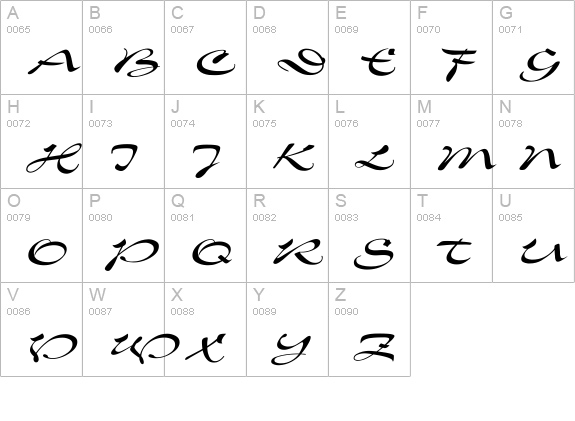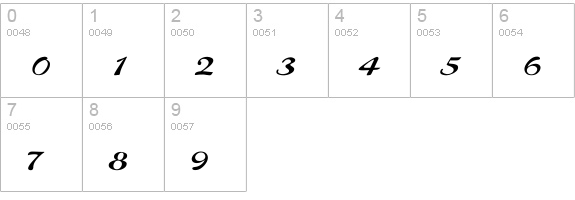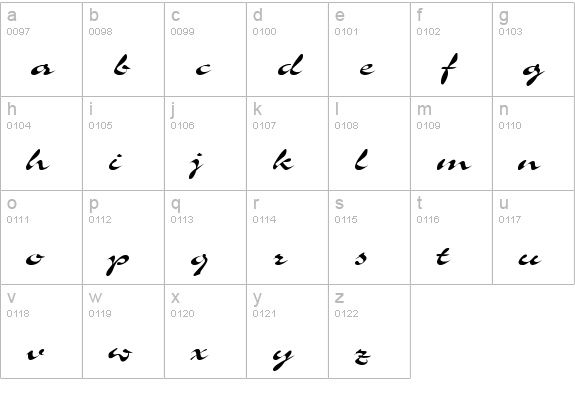
Slogan-Normal Wd Font Details
Slogan-Normal Wd is the standard, neutral variant in the Slogan typeface family \xE2\x80\x94 well suited to general body text, paragraphs, and standard typographic work.
Introducing Slogan-Normal Wd font, the perfect blend of elegance and versatility. This exquisite typeface captures attention with its sleek and modern design, making it ideal for a wide range of creative projects. With its clean lines and well-balanced letterforms, Slogan-Normal Wd adds a touch of sophistication to any design. But what truly sets Slogan-Normal Wd apart is its accessibility. This remarkable font is freely available to download at FontsMarket.com, making it an invaluable resource for designers, artists, and typographers alike. Whether you're working on a professional branding project, designing eye-catching advertisements, or simply looking to add a touch of finesse to your personal creations, Slogan-Normal Wd is the perfect choice. With its extensive character set and a variety of weights, Slogan-Normal Wd offers endless possibilities for customization. It effortlessly adapts to different design styles, allowing you to create unique and memorable typography that truly stands out. From crisp and clean headlines to elegant body text, this font delivers exceptional legibility and readability across various platforms and devices. Slogan-Normal Wd is more than just a font; it's a versatile tool that empowers your creativity. Whether you're a seasoned designer or just starting your creative journey, this font is sure to become a valuable asset in your toolkit. Its timeless appeal and effortless style make it suitable for a wide range of applications, from print to digital media. So why wait? Discover the beauty and versatility of Slogan-Normal Wd font today. Experience the freedom of expression it offers and unleash your creativity like never before. Download it for free at FontsMarket.com and embark on a journey of typographic excellence.